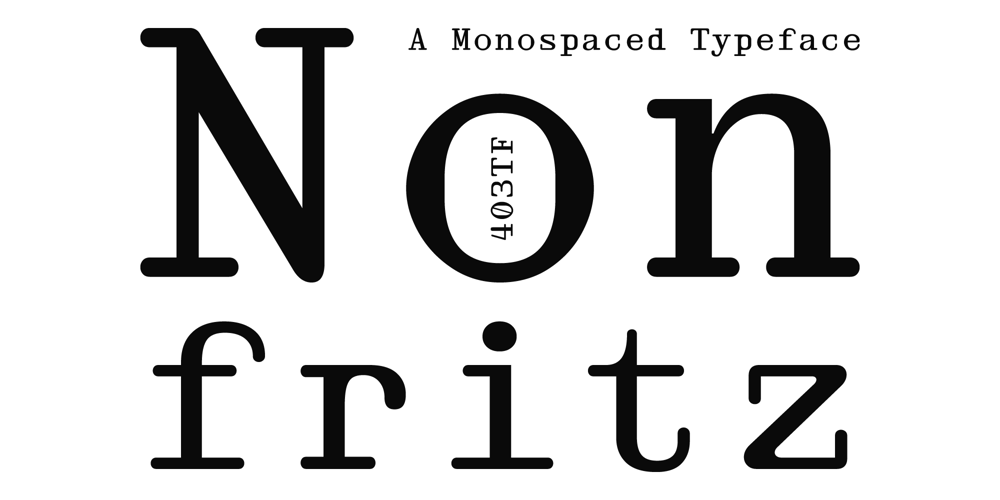
403 Nonfritz
403 Nonfritz font
403 Nonfritz Font Family was designed by Umar Al Farouq, Jodi El Ghazi, Febri Riansah and published by 403TF. 403 Nonfritz contains 2 styles and family package options. Nonfritz is a single-weight monospaced font designed by 403TF. With its clean, consistent appearance and slanted style, Nonfritz is perfect for projects requiring precise alignment, such as programming, technical documentation, or data visualization. Supporting 268 languages, this versatile font caters to diverse international needs. Its modern aesthetic, wide language support, and slanted style make it an excellent choice for creating professional and polished designs.